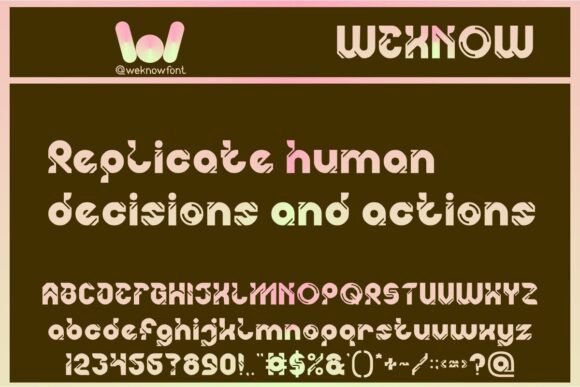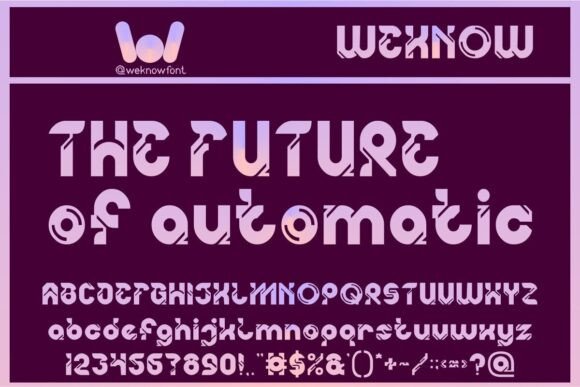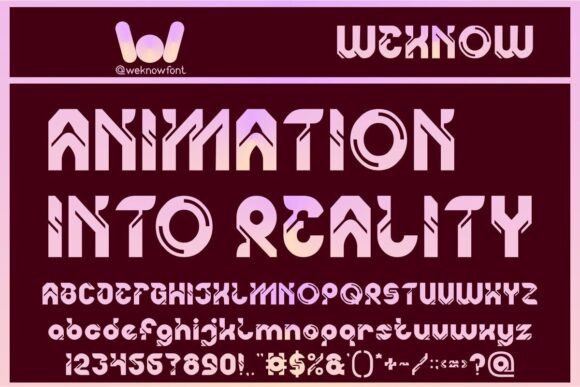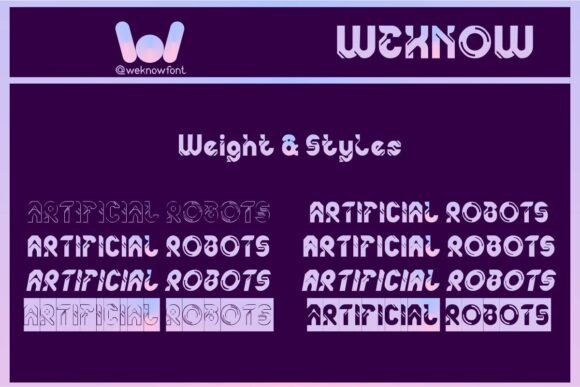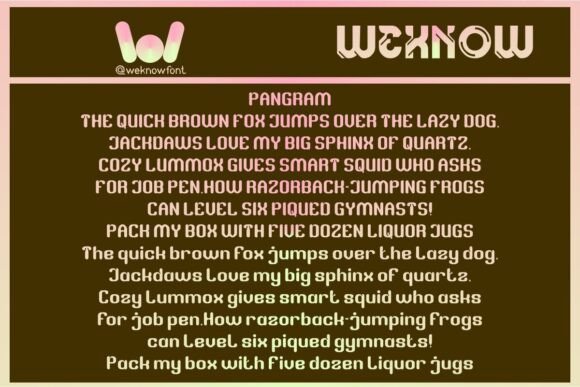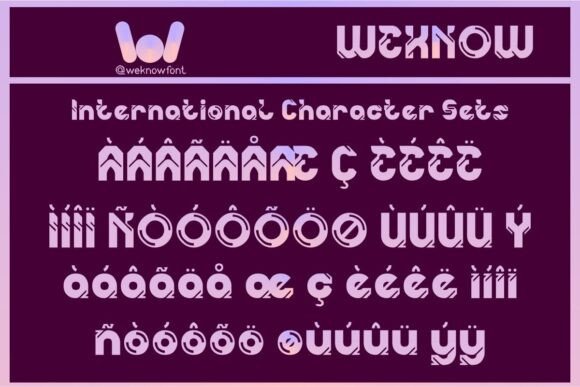
Get Ready to Uplift Your Designs with the Future-Ready Artificial Robots Font
Have you ever found yourself lost in a sci-fi movie or video game, mesmerized by the futuristic interfaces and sleek robotic designs? That’s exactly the kind of creative spark that inspired the development of the Artificial Robots Font. This striking font is a perfect blend of modernity and cutting-edge design, making it an ideal choice for designers who want to add a dash of futurism to their work.
The Artificial Robots Font is a versatile display font that’s tailor-made for a wide range of applications, from logos and headlines to corporate identities and apparel designs. Its unique blend of techno-sci-fi elements and robotic grace makes it a valuable asset for designers who want to stand out from the crowd.
Key Features of “Artificial Robots Font”
- Font Family: A futuristic and modern sans-serif font designed for robots and technology-related themes.
- Unique Characteristics: The font features a unique blend of geometric and organic elements, giving it a distinctive and futuristic look. The font also includes a range of customization options, including ligatures, swashes, and alternate characters.
Artificial Robots Font Review
Overall, I was excited to dive into the Artificial Robots Font, but my experience was a mixed bag. Here’s what I thought:
- The font’s futuristic feel is perfect for sci-fi or tech-related projects.
- The bold and heavy weights make it great for headings and titles.
- The font’s consistency across different sizes and styles is impressive.
- The font can be quite overbearing, making it difficult to read large blocks of text.
- The light weights can be too light, making it hard to distinguish the text from the background.
- The font lacks a clear sans-serif feel, which can make it less versatile for general use.
The Artificial Robots Font is a solid choice for projects that require a futuristic or techy feel. However, its limitations make it less suitable for general use or for projects that require a high level of readability. If you’re looking for a font that’s perfect for sci-fi or tech-related projects, this might be a great option. But if you’re looking for a more versatile font, you might want to consider other options.
Tips for Getting the Most Out of Artificial Robots Font
To get the most out of Artificial Robots Font, try the following:
- Combine the font with bold lines or shapes to create a futuristic look.
- Use the font in bold, italic, or underline styles to add emphasis.
- Experiment with different font sizes to create visual hierarchy.
Some common use cases for Artificial Robots Font include:
- Robot-themed posters or infographics.
- Custom graphics or illustrations for robotics or AI projects.
- Presentations or documents about robotics or AI.